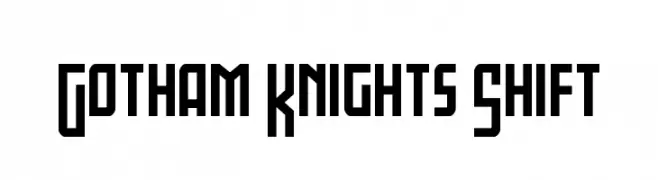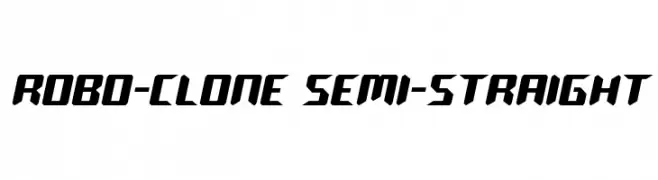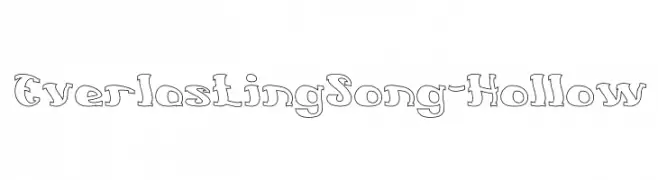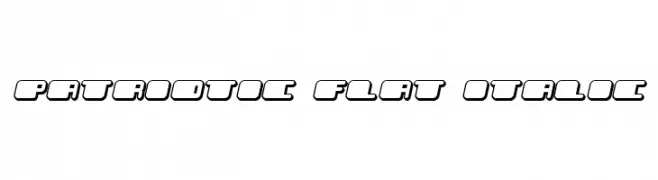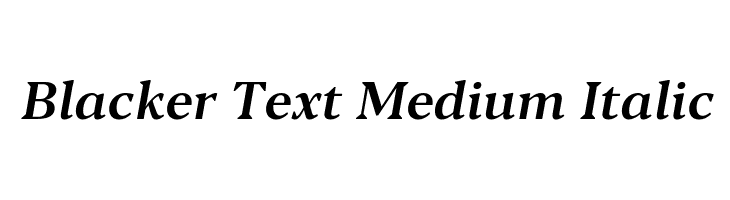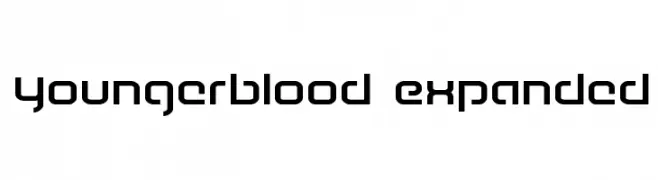
A bold, geometric font with angular lines and a modern aesthetic.
A bold, condensed, and italic font with high contrast and a modern style.
A bold, italic font with a modern, geometric design and dynamic style.
A bold, futuristic font with angular, geometric shapes and a slightly slanted design.
A bold, decorative serif font with shadow effects and star cutouts.
A clean, modern sans-serif font with uniform stroke width and excellent readability.
A clean, structured serif font with moderate contrast and semi-bold weight.
A modern slab serif font with tall, narrow characters and balanced serifs.
A playful, hollow, and whimsical font with a hand-drawn style.
A bold, geometric font with a three-dimensional outline and modern appeal.